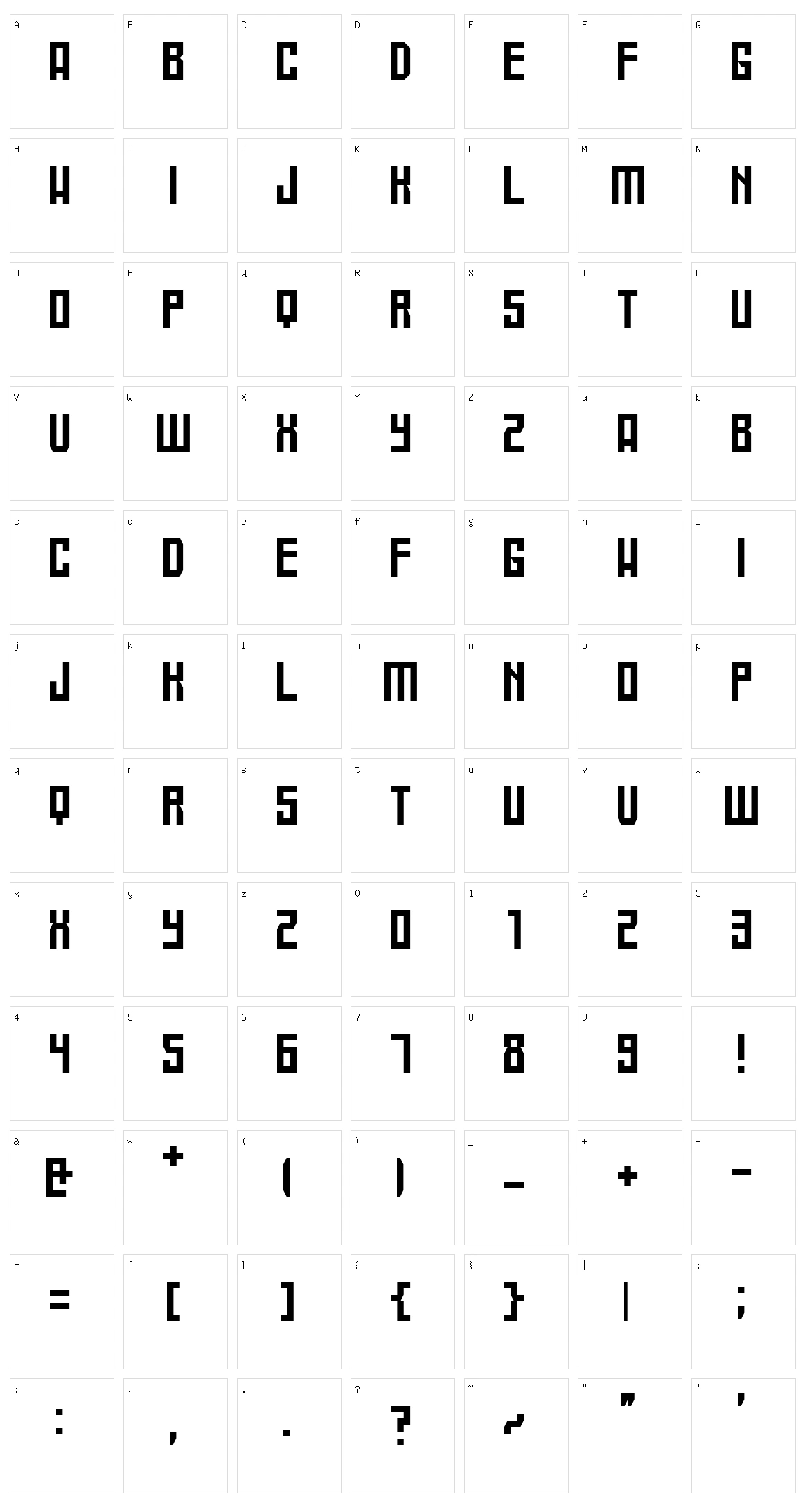
The free font Tigre is carefully designed by Spencer Hill, showcasing a thoughtful balance of creativity and usability and falls under the Square font style. When you download the ZIP file, it contains only 6.17 KB of font files, making it lightweight and quick to download. Please review the license details below to understand permitted usage and distribution rights. If license information is not available, we recommend using this font for personal projects only or contacting the author directly for commercial usage permissions.